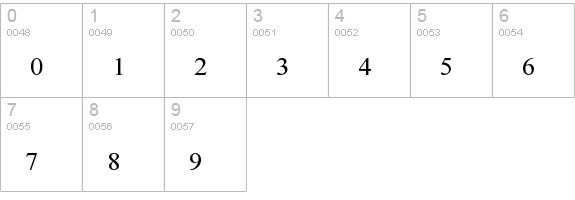
AngsanaUPC Font Details
AngsanaUPC is a modern and elegant font that exudes sophistication and style. Its sleek lines and rounded edges make it perfect for a wide range of design projects, from branding to editorial design. The versatility of AngsanaUPC allows it to be used in both digital and print media, making it a valuable addition to any designer's toolkit. What sets AngsanaUPC apart is that it is available for free download at FontsMarket.com. This means that designers can easily access this high-quality font without any cost, allowing them to bring their creative vision to life without any limitations. With its clean and professional aesthetic, AngsanaUPC is sure to elevate any project it is used in, making it a must-have for any designer looking to make a statement.